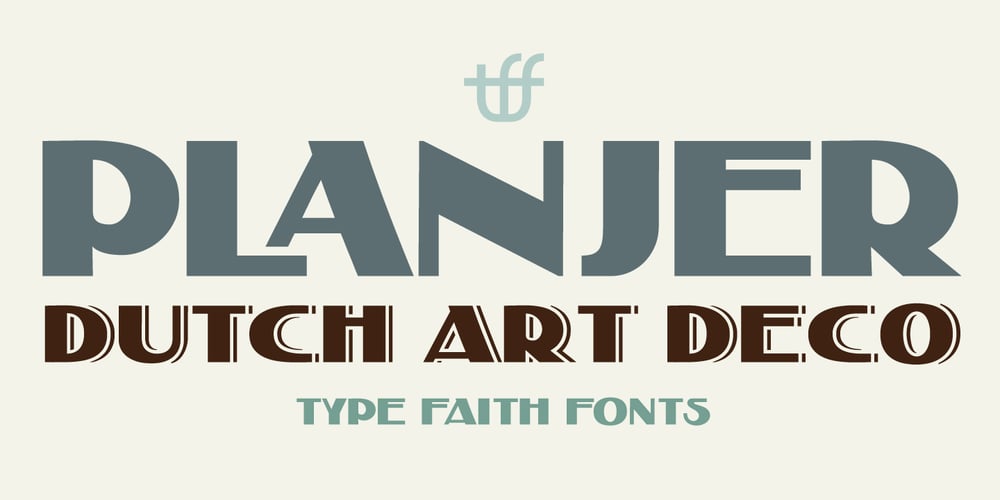
Planjer Font Family was designed by Léon Hulst and published by TypeFaith Fonts. Planjer contains 4 styles and family package options. Art deco typography from the Netherlands that summons a thirties vibe for a nostalgic twist on chic lines. Planjer is the work of designer Leon Hulst, and you can see from the layout examples here that nostalgia means ruin, and it has become super cool to use a ruin vibe in retro aesthetics. Yep, there’s a touch of class to that worn out look and feel, and the beautiful lines of the typography and numerals show how the barely restrained charisma of art deco can be coupled with the new obsession with all things vintage.